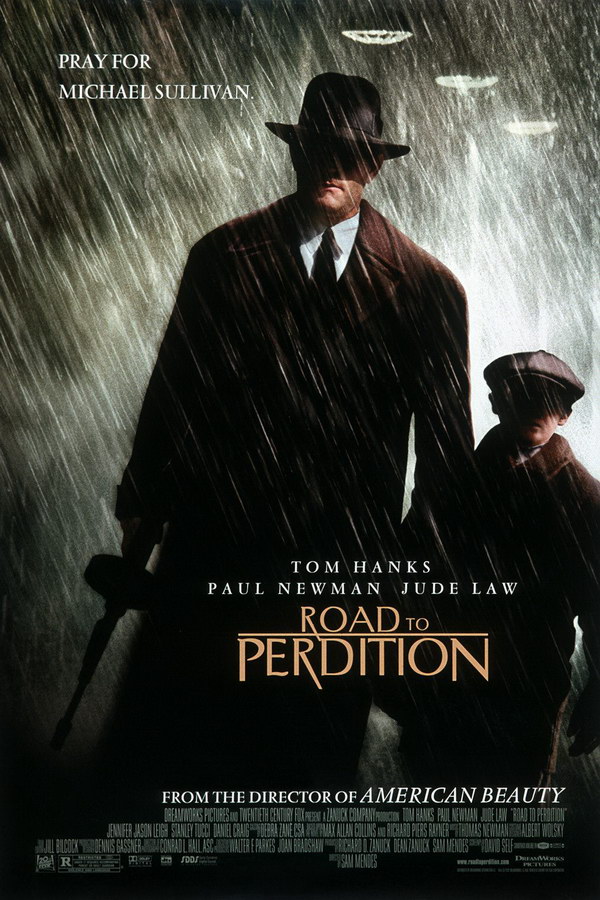
Road to Perdition Font
CrimeRoad to Perdition is a 2002 crime drama film directed by Sam Mendes, featuring Tom Hanks as a mob enforcer who goes on the run with his young son after a tragedy strikes their family, seeking revenge and redemption in the process.
The film's title font on the poster resembles the font Road to Perdition created by Jesn R. Ziehn. This font exclusively uses capital letters and can be downloaded for free from the Fonts USed Section.